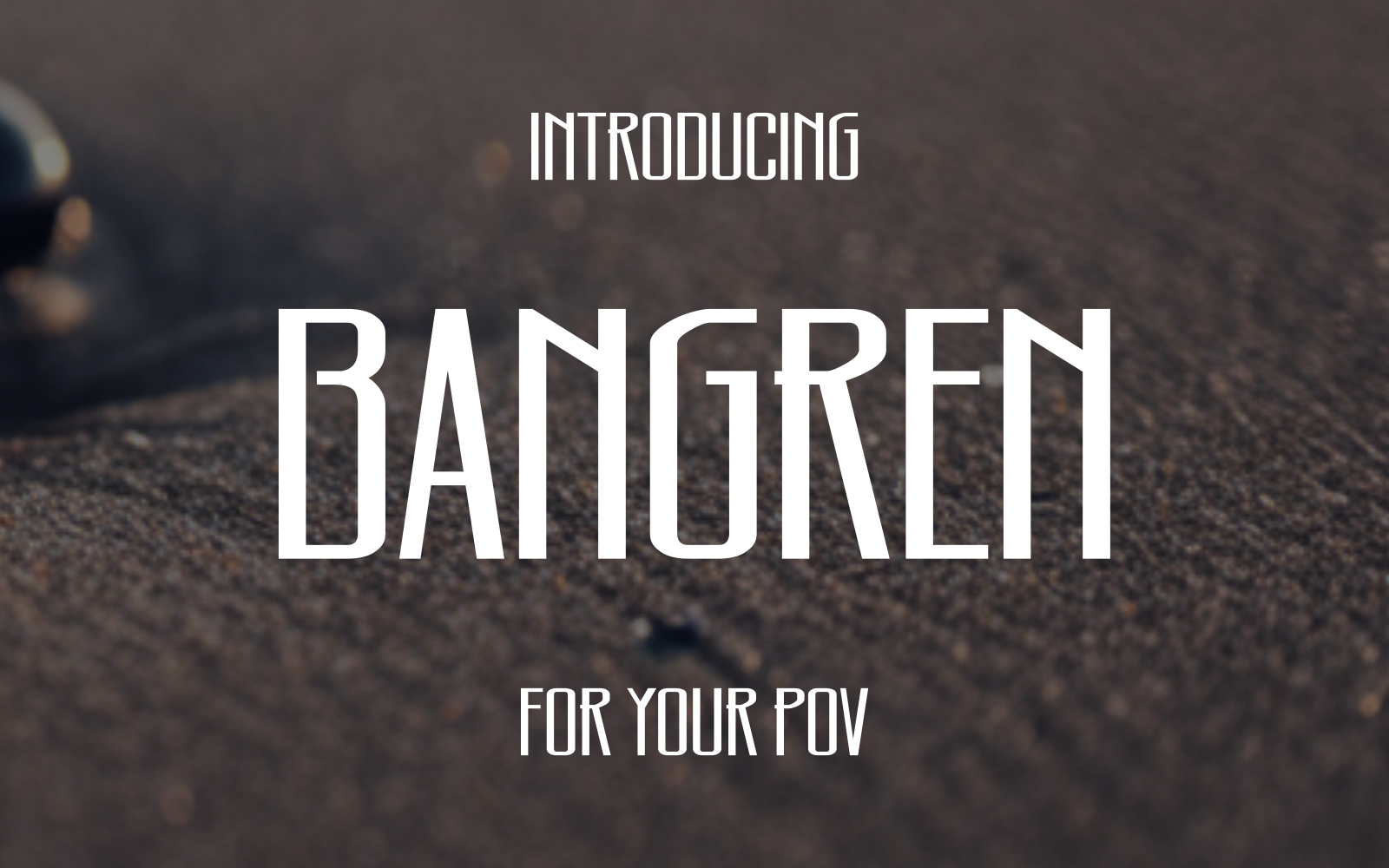
BANGREN Japan Techno Speed Font
Bangren is a dynamic font crafted for technology, sports, and automotive themes. With sleek, thin lines and a futuristic aesthetic, it brings a modern, high-tech feel to projects centered around robotics, football, motorbikes, and automotive designs.
Key Features:
- Style : Techno, Sports, Lightweight, Thin
- Specialty : Tailored for high-energy themes, including robotics, football, soccer, motorbike, and automotive.
- Professional Quality : Combines readability with a refined, professional finish, making it ideal for impactful branding and design